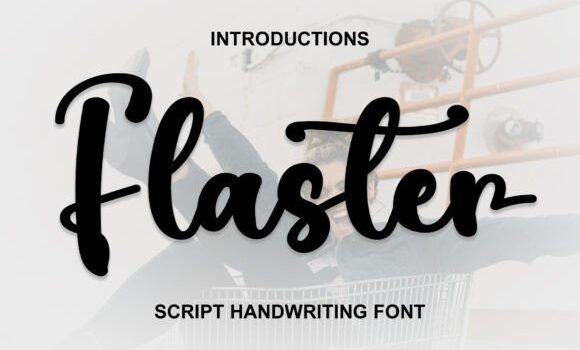
flaster
Flaster Font - Featured Image
Flaster Font – Free Download Introduction to Flaster Font Flaster is a magical handwritten font carefully created to give a touch of elegance to your designs. 📸 Preview Gallery 5 images 📌 Product Name Flaster Font 👤 Author YanStudio 📂